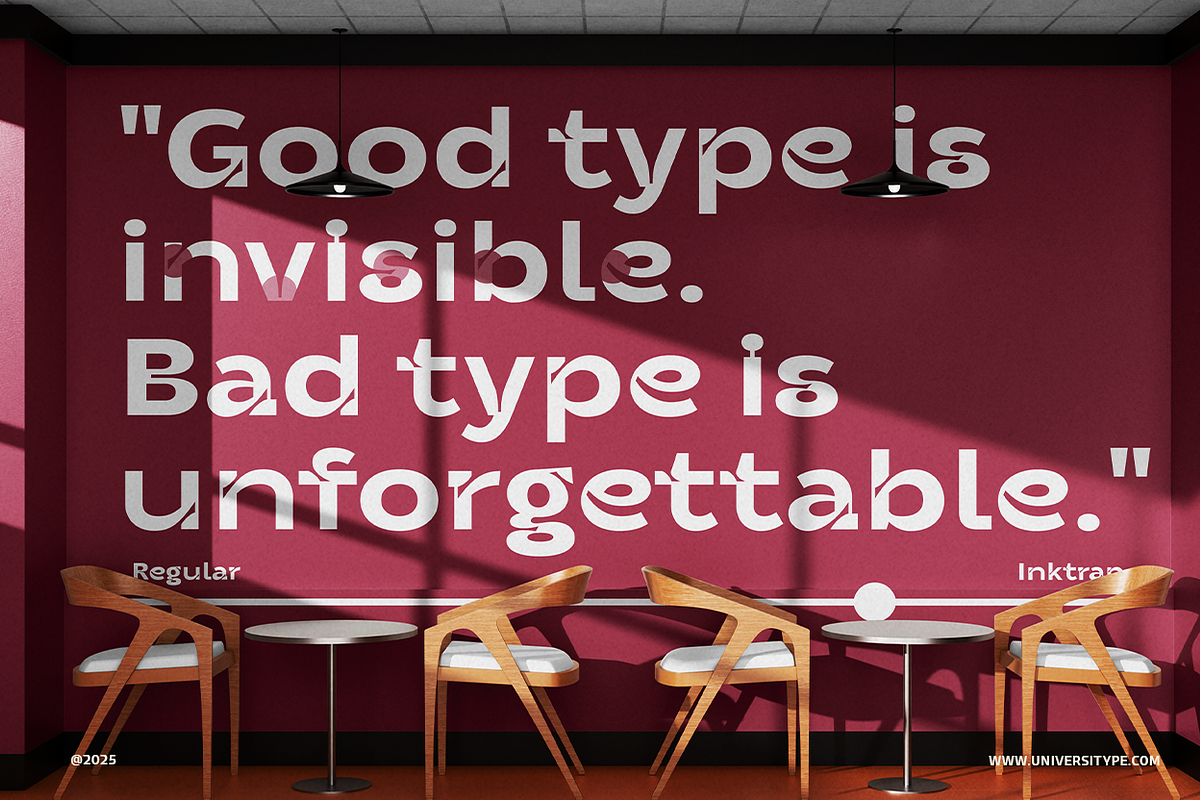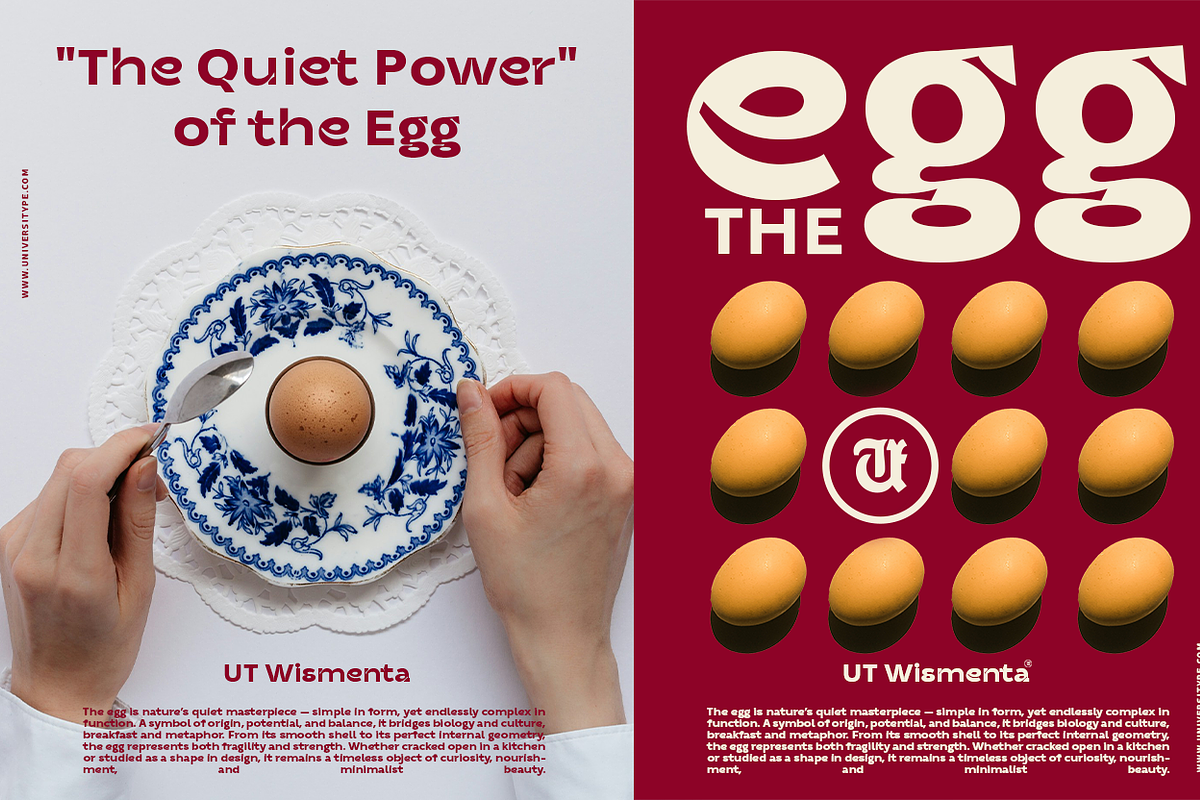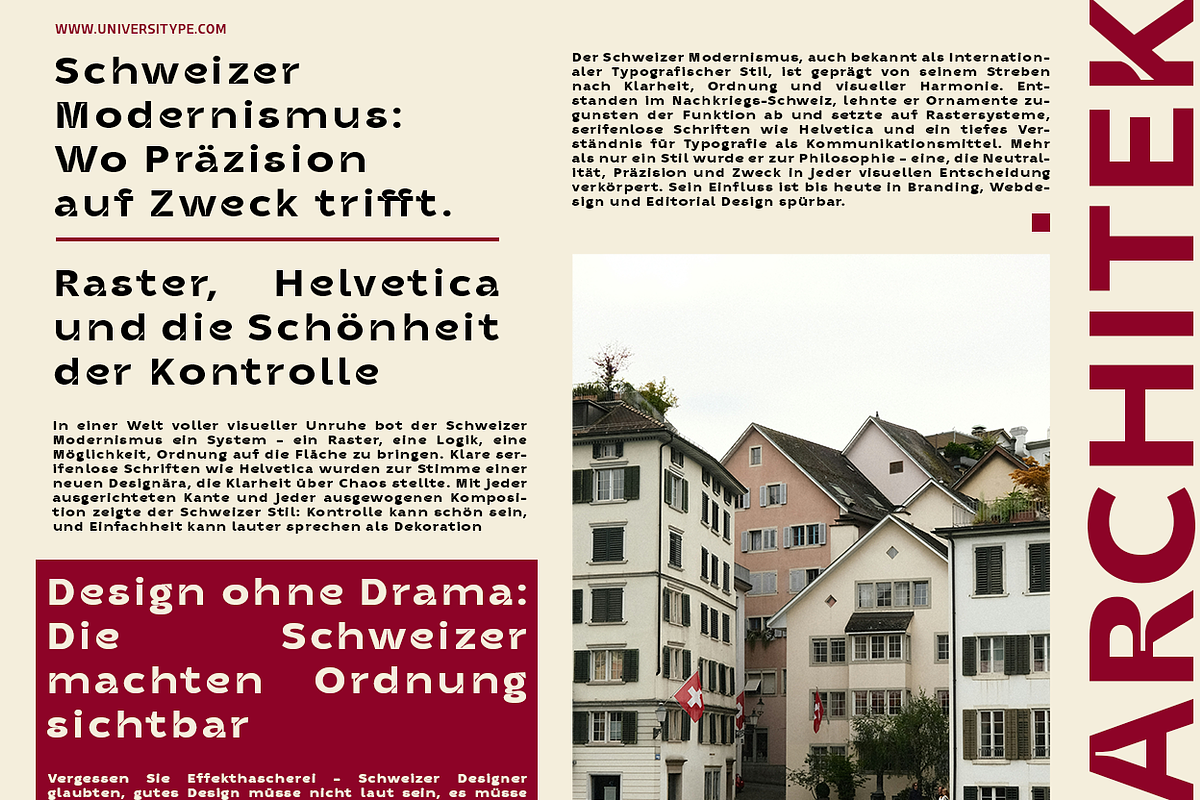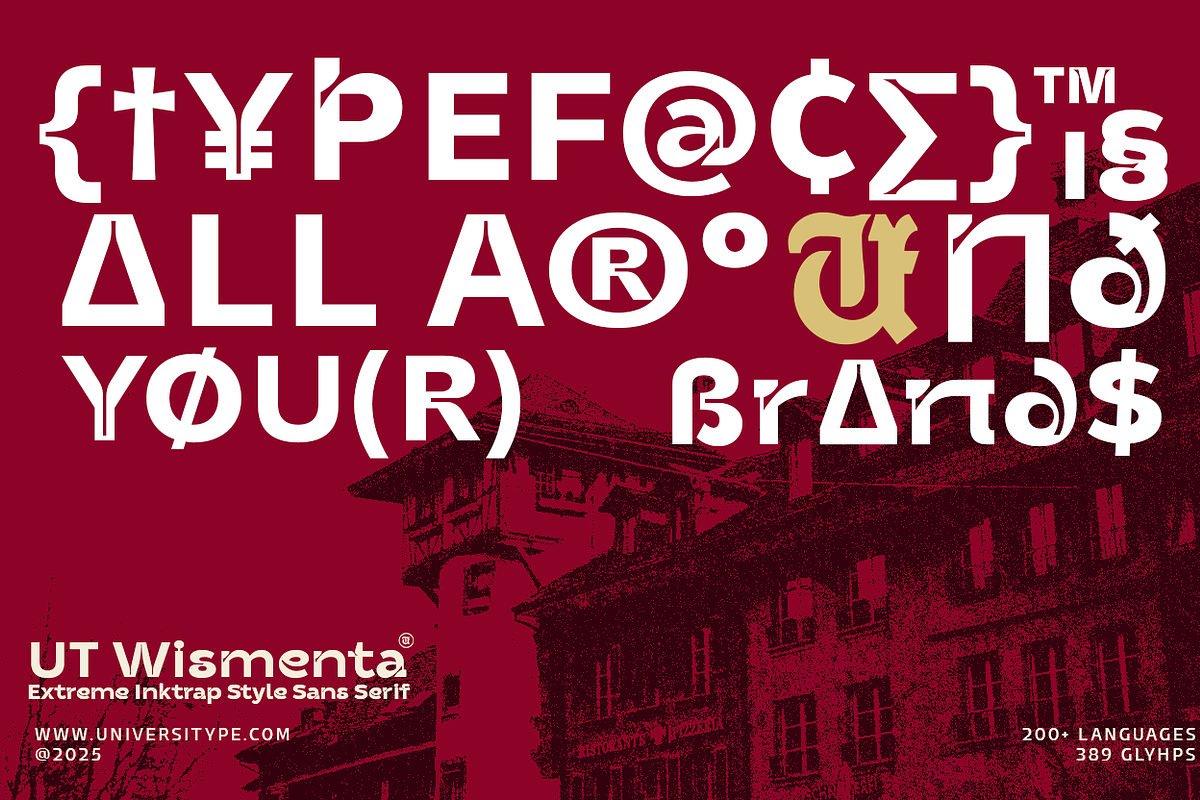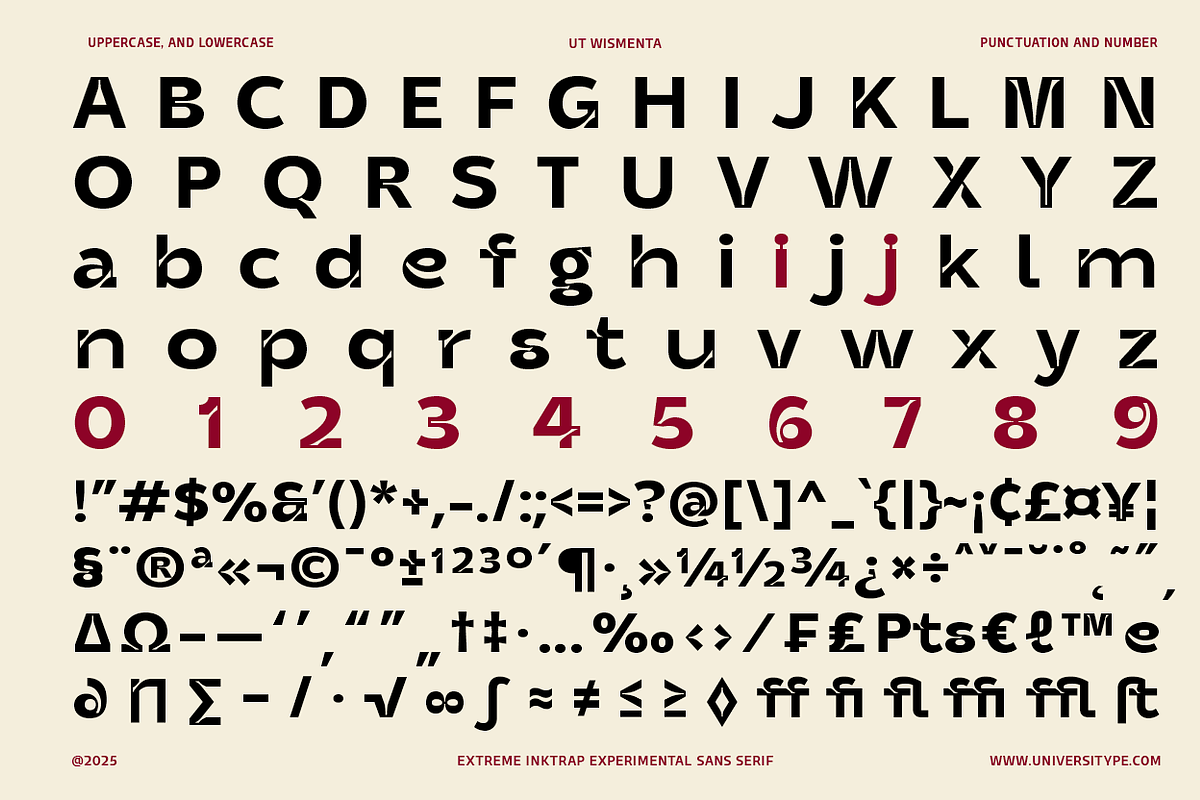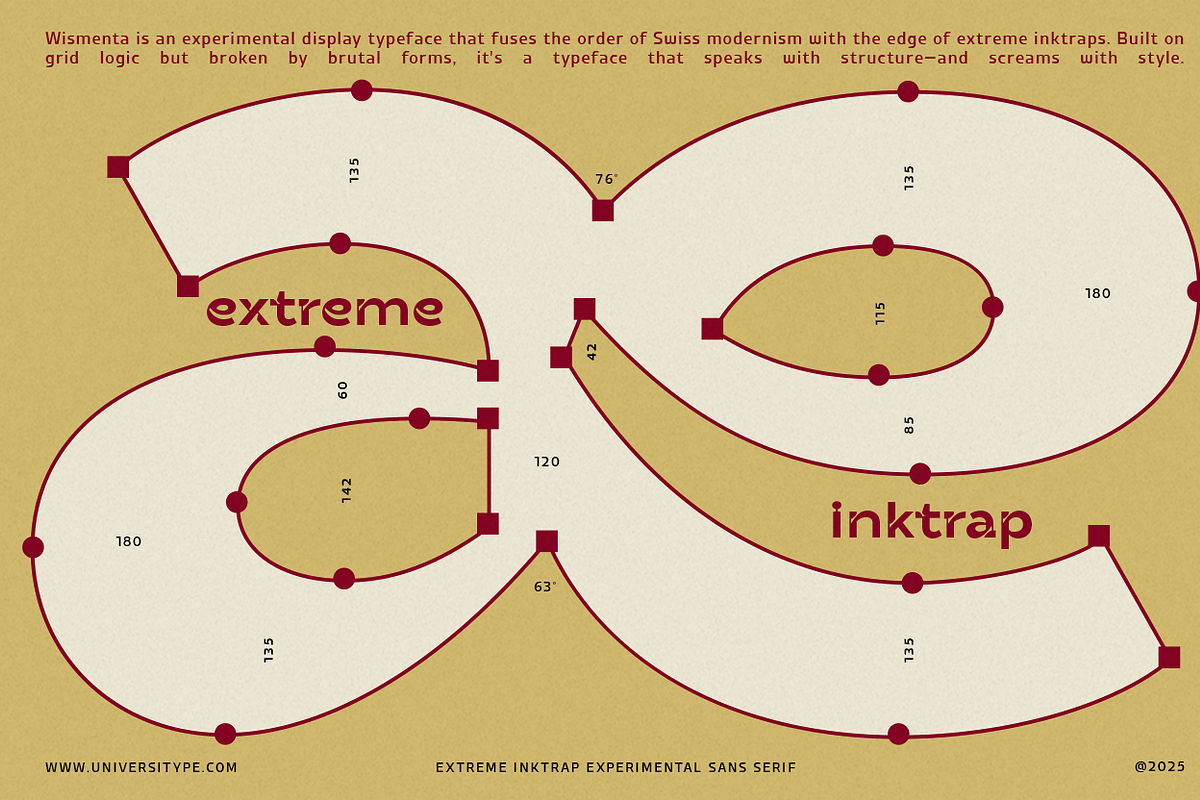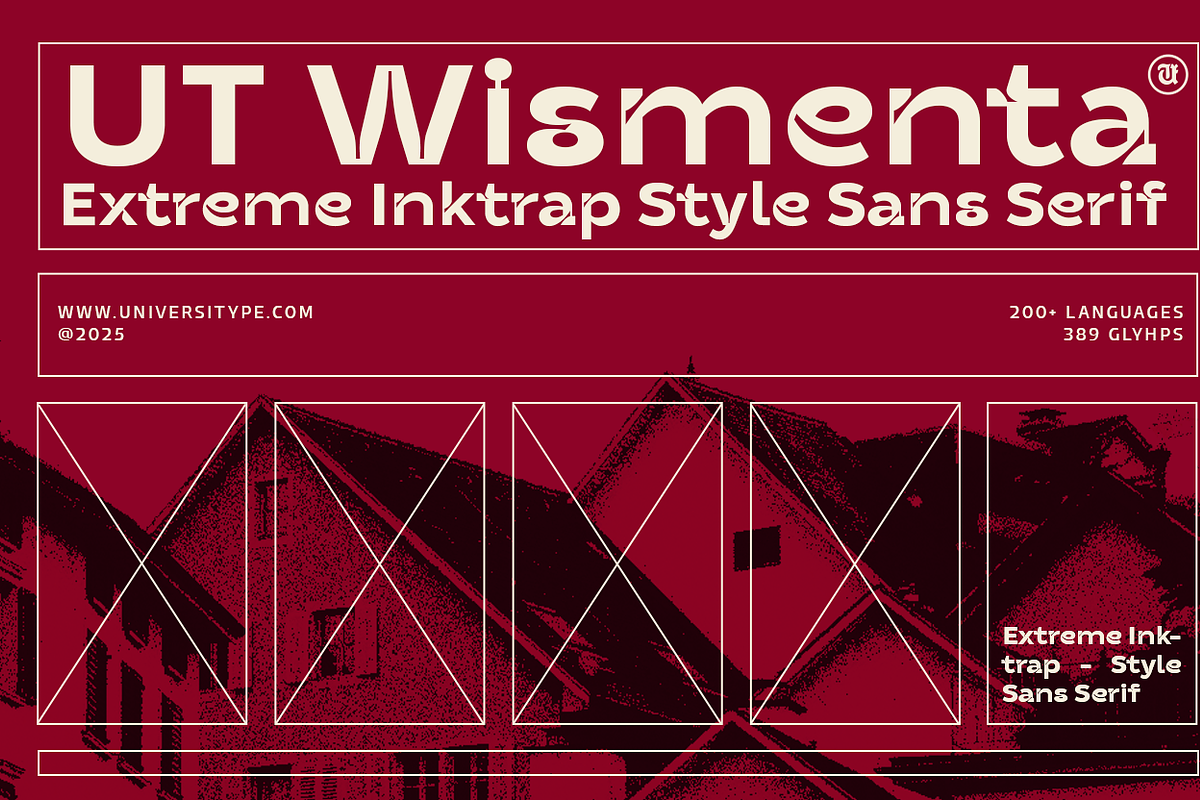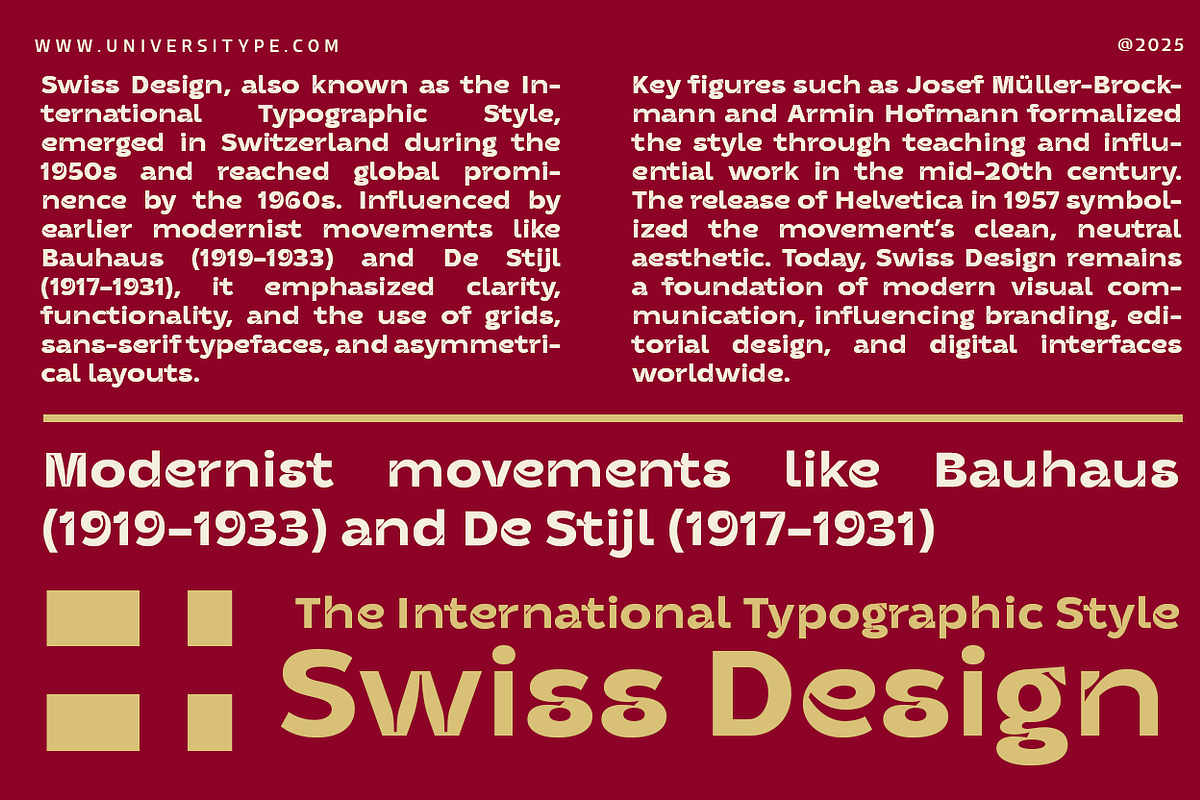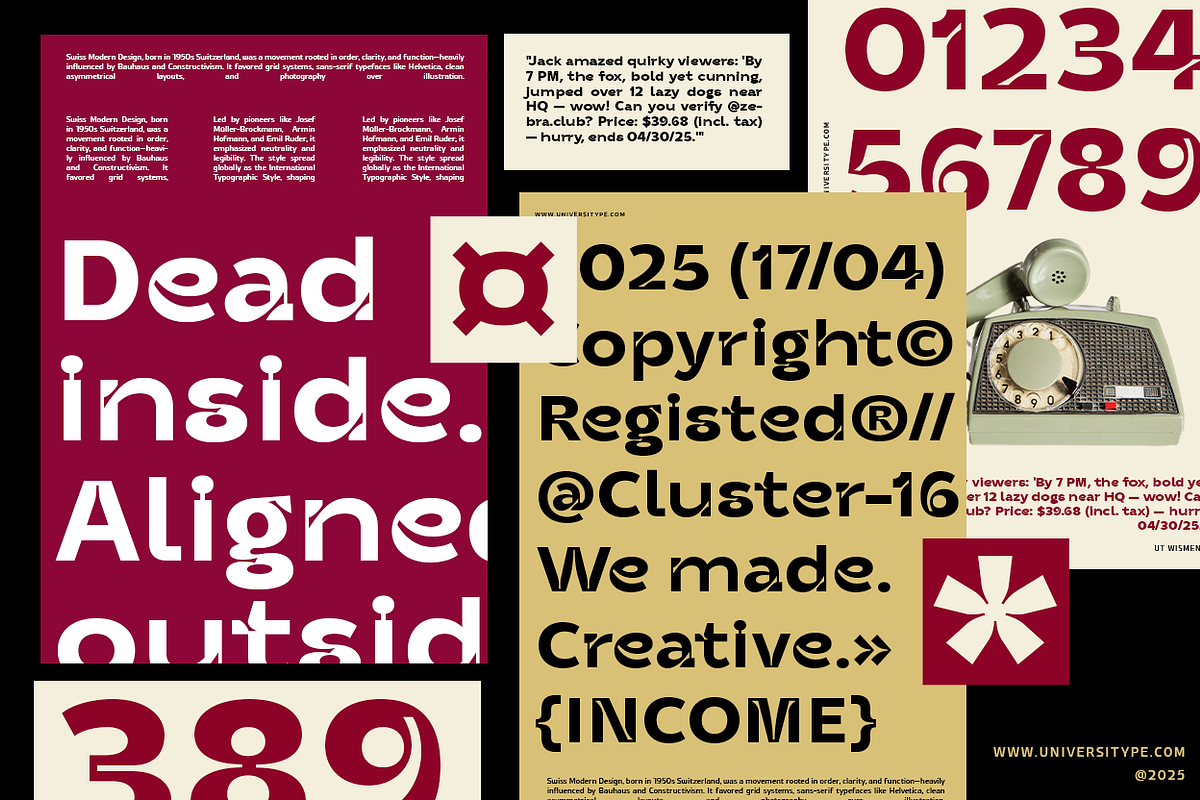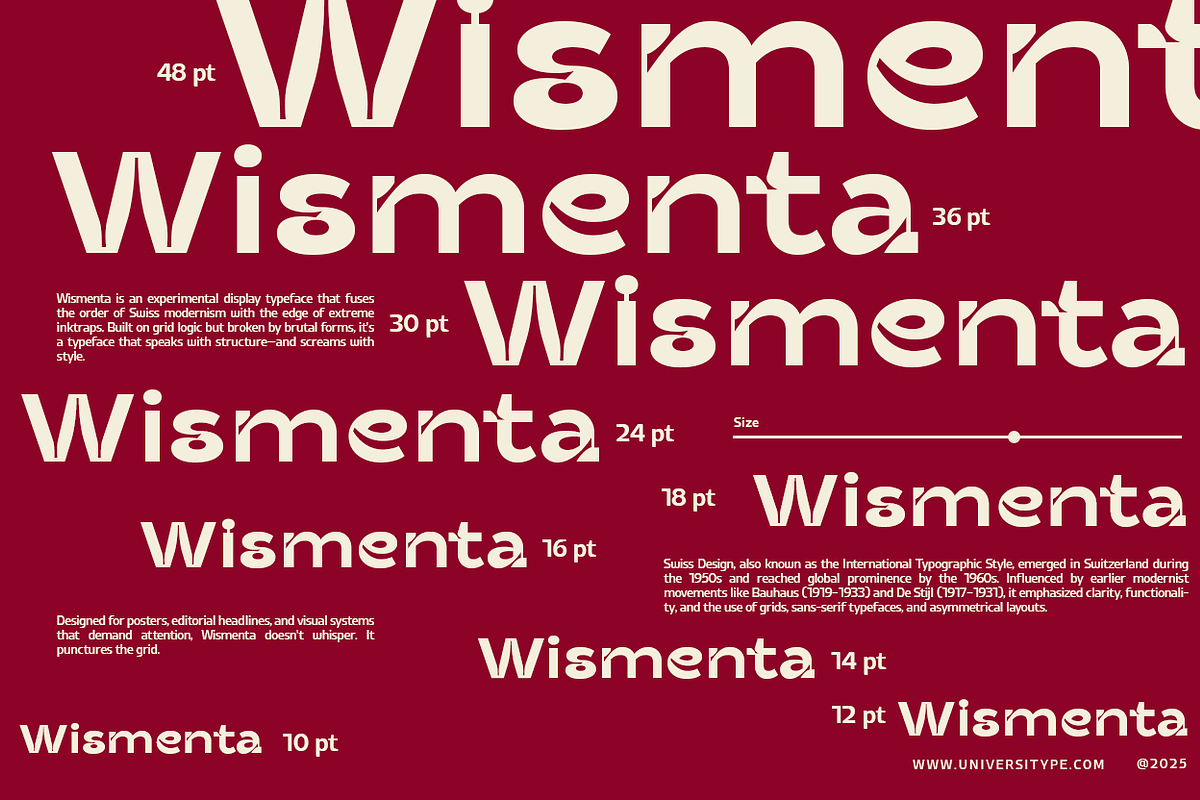
UT Wismenta - Extreme Inktrap Sans
Meet UT Wismenta, a bold display typeface that mixes the clean structure of Swiss modernism with the raw attitude of extreme ink traps. Built on grid logic but broken by brutal, expressive forms, this sans serif doesn’t just speak with structure, it shouts with style.
UT Wismenta is made for bold, creative minds who want their work to stand out. Perfect for graphic designers, typographers, and artists looking to add a fresh, modern edge to branding, editorial layouts, packaging, and digital interfaces.
- Extreme Inktrap Style: Sharp, exaggerated inktraps give the font a striking, handcrafted feel.
- Versatile Across Sizes: Looks sharp from 10pt to 48pt, keeping its impact and clarity at any scale.
- Multilingual Support: Covers over 200 languages, making it a solid choice for global projects.
- Wide Glyph Set: 389 glyphs give you plenty of options for different characters and symbols.
The Inspiration behind UT Wismenta pulls from the timeless ideas of the Swiss Design movement, it influenced by earlier modernist movements like Bauhaus (1919-1933) and De Stijl (1917-1931), Swiss Design emphasized clarity, functionality, and the use of grids, sans-serif typefaces, and asymmetrical layouts.
The Bauhaus movement, with its focus on the unity of art, craft, and technology, laid the groundwork for a design aesthetic that was both practical and visually striking. De Stijl, with its emphasis on simplicity and abstraction, further refined this aesthetic, using primary colors and geometric forms to create a sense of order and balance.
Swiss Design took these principles and ran with them, creating a style that was both rigorous and playful, structured yet free-spirited. It was a design revolution that swept through Switzerland and beyond, influencing everything from advertising to architecture, from book design to product packaging.
Where to Use It
- Headlines & Posters: Make a strong statement.
- Packaging: Bring a stylish, modern touch to product designs.
- Digital Interfaces: Stand out with a typeface that’s anything but ordinary.
- Editorial Design: Perfect for articles and layouts that need a bold typographic voice.
- OpenType Features: Includes ligatures, alternates, and language-specific forms for more creative control.
UT Wismenta is a creative tool for those who aren’t afraid to break the mold. If you’re ready to bring some wild energy into the structured world of modernism, UT Wismenta is ready for you.